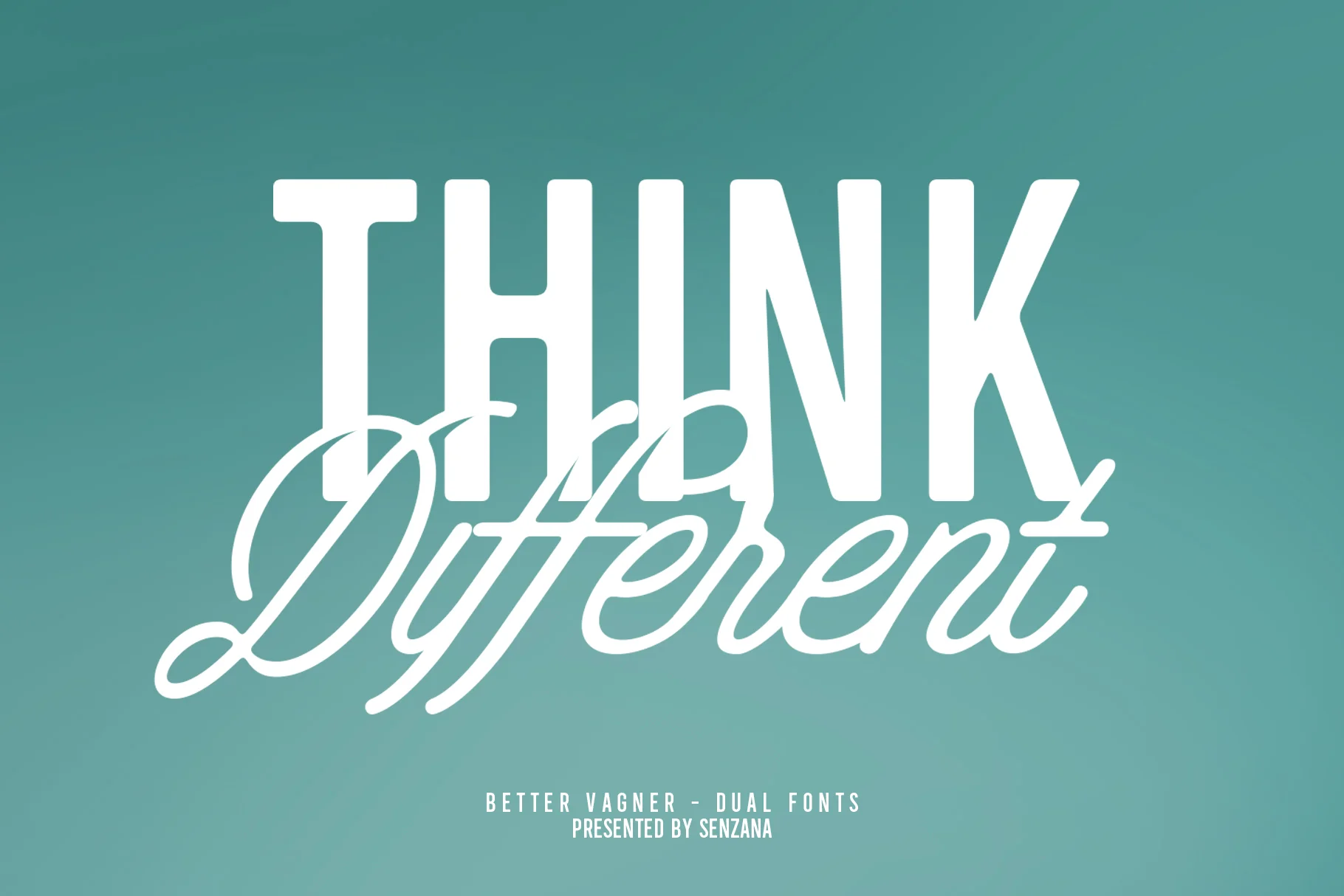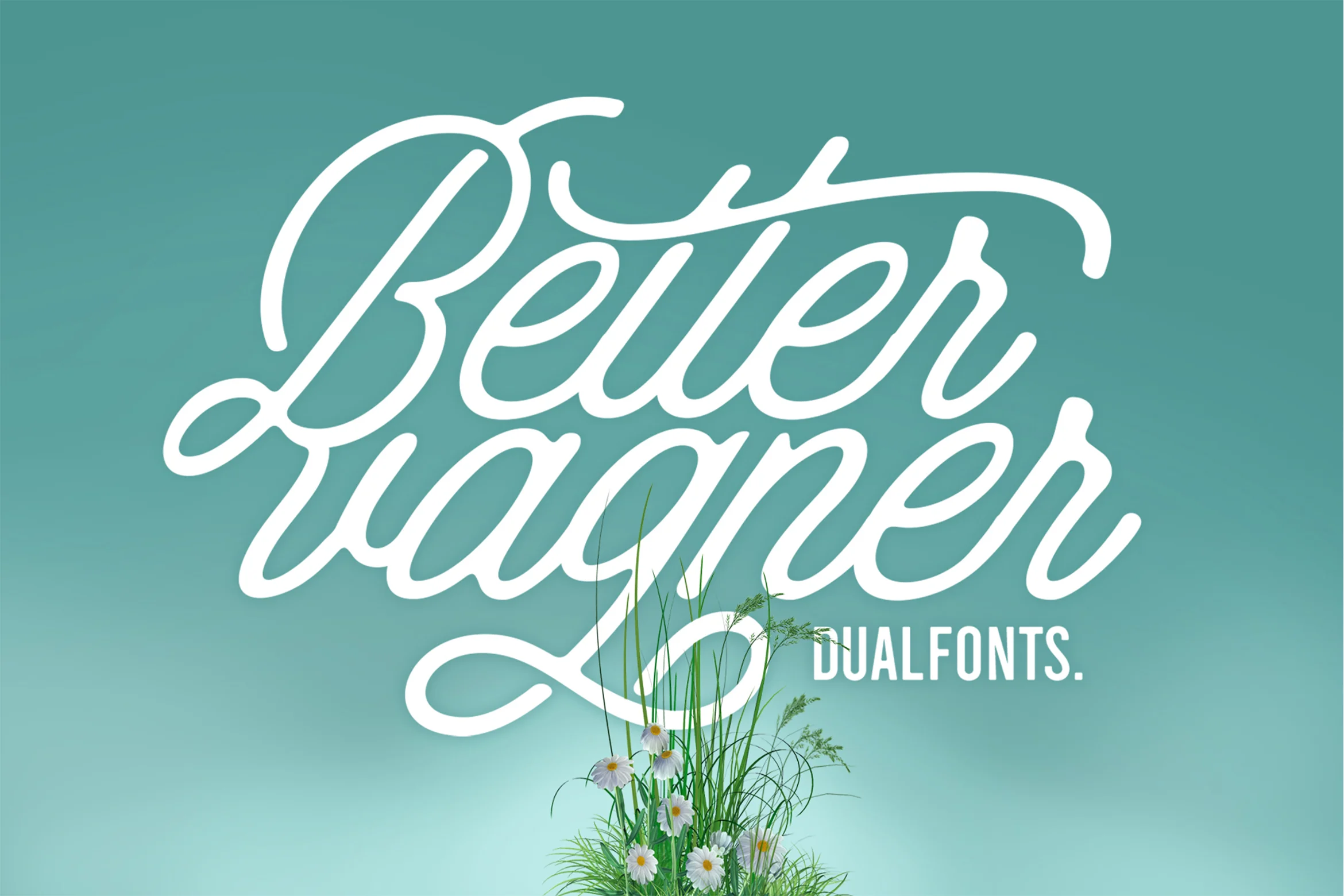
Better Vagner
**Better Vagner** Font is the perfect combination of sans serif and script font. **Better Vagner** Font features elegant sans and flowing script to make your brand or design project stand out!
**Better Vagner** Font is a perfect choice for any creative endeavor, elegant lifestyle designs such as logos, advertisements, photography watermarks, stationery, branding projects, displays and magazines, invitations, corporate branding, product designs, labels, business projects and many other projects with a modern vintage and elegant touch.